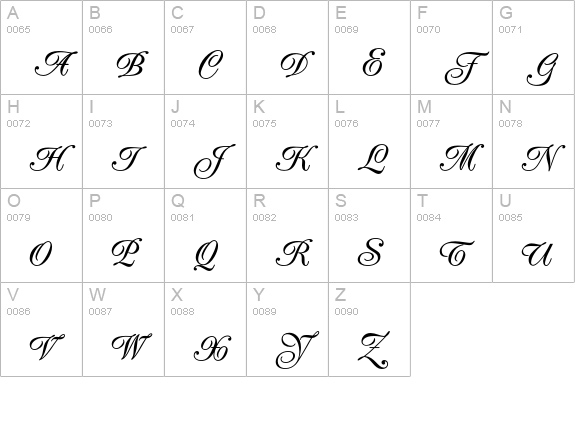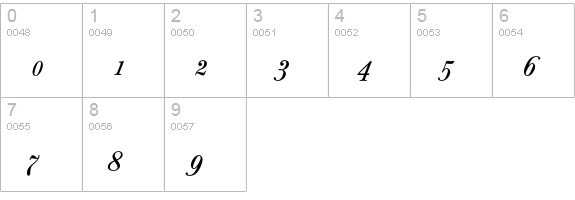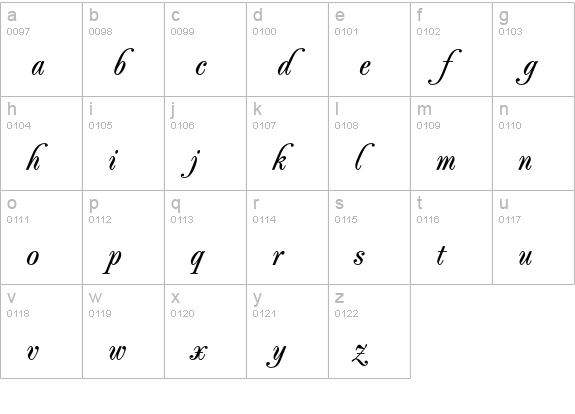
PeachExquisiteOpti-Bold is a strong, high-contrast variant in the PeachExquisiteOpti typeface family \xE2\x80\x94 well suited to headlines, attention-grabbing titles, and strong calls-to-action.
PeachExquisiteOpti-Bold font is a stunning and captivating typeface that exudes elegance and sophistication. Its bold and confident letterforms are a testament to its exquisite design, making it the perfect choice for projects that require a touch of luxury and refinement. With its smooth curves and sharp edges, PeachExquisiteOpti-Bold commands attention and brings a sense of prestige to any design. Whether used for headlines, logos, or branding materials, this font adds a touch of class and sophistication to any project. What sets PeachExquisiteOpti-Bold apart is not just its exceptional design, but also its availability as a free font. That's right, this remarkable typeface can be freely downloaded at FontsMarket.com. This means that you can enhance your designs with this premium font without breaking the bank. With its extensive character set, PeachExquisiteOpti-Bold offers versatility and flexibility to designers. It supports multiple languages, allowing you to create stunning designs for a global audience. Its legibility and readability ensure that your message is conveyed clearly and effectively. Whether you're designing a high-end fashion magazine, a luxury brand website, or an elegant invitation, PeachExquisiteOpti-Bold is the font that will elevate your design to new heights. Its bold and distinctive presence will leave a lasting impression on your audience. Experience the beauty and sophistication of PeachExquisiteOpti-Bold font today. Download it for free at FontsMarket.com and unlock a world of possibilities for your design projects.